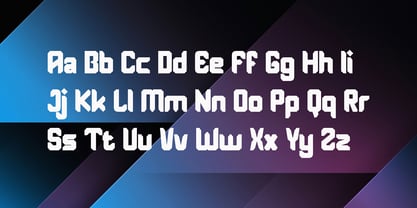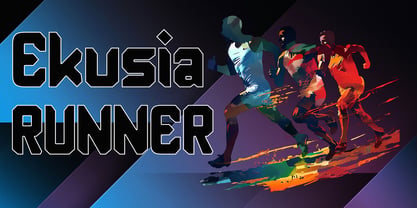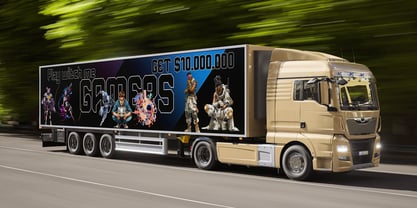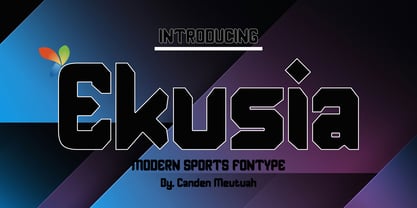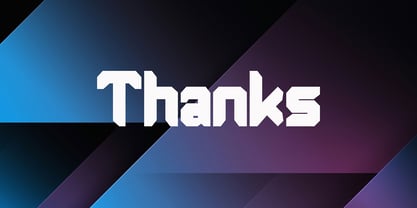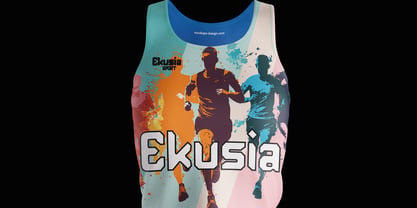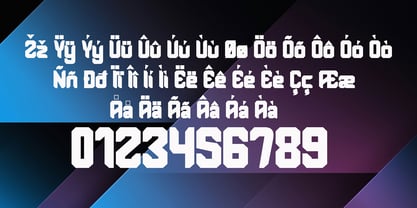
Ekusia
by Canden Meutuah
The Ekusia Font Family was designed by Canden Meutuah and published by Canden Meutuah. Ekusia contains 1 styles. More about this family
Ekusia is a striking sports font characterized by wide, bold letters and a contemporary, dynamic design. Ideal for high-speed car racing titles, running competitions, cycling events, automotive game logos, monograms, and various sports-related projects, this font stands out in bold applications. It is also well-suited for posters, logo designs, editorial titles, album covers, and fashion branding. With its unique flair, Ekusia captures attention effortlessly. The font excels in readability and size, imparting a sense of power, thickness, and speed. Designed for a fast-paced aesthetic, Ekusia offers a modern twist on traditional sports fonts, making it a must-have for your creative projects.